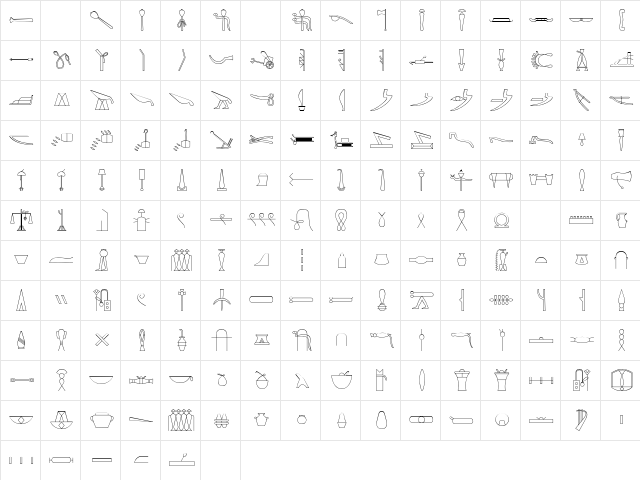
GlyphBasic4 Regular
Design Context for GlyphBasic4 Typeface
GlyphBasic4 offers clean, dependable letterforms without strong stylistic allegiance, making it a practical choice for designers who need flexibility.